Calligraphy can give a short line of text the presence of a custom illustration. The challenge is matching that personality to the job: delicate flourishes can make an invitation feel special, while a heavier script may be the better choice for a poster or food label. These ten fonts span both ends of that range.
Before choosing one, set your actual words in the typeface. Check the capital letters, the joins between letters, and how the design holds up at its final size. A beautiful sample alphabet does not always make a readable logo or headline.
Quick picks
| Design goal | Font to try |
|---|---|
| Relaxed, personal lettering | Handwriting Font |
| Vintage romance | Bellinda |
| Light, sweeping elegance | Chemistry |
| Friendly, high-impact headlines | Butter Donat |
| A script and serif pairing | Gervia |
| Bridal and boutique identities | Elizabeth |
| Dramatic luxury lettering | Salistya |
| Dark, expressive posters | Lovely Madness |
| A clear, rounded script | Dentany |
| Energetic promotional work | Ballistisia |
Handwriting Font
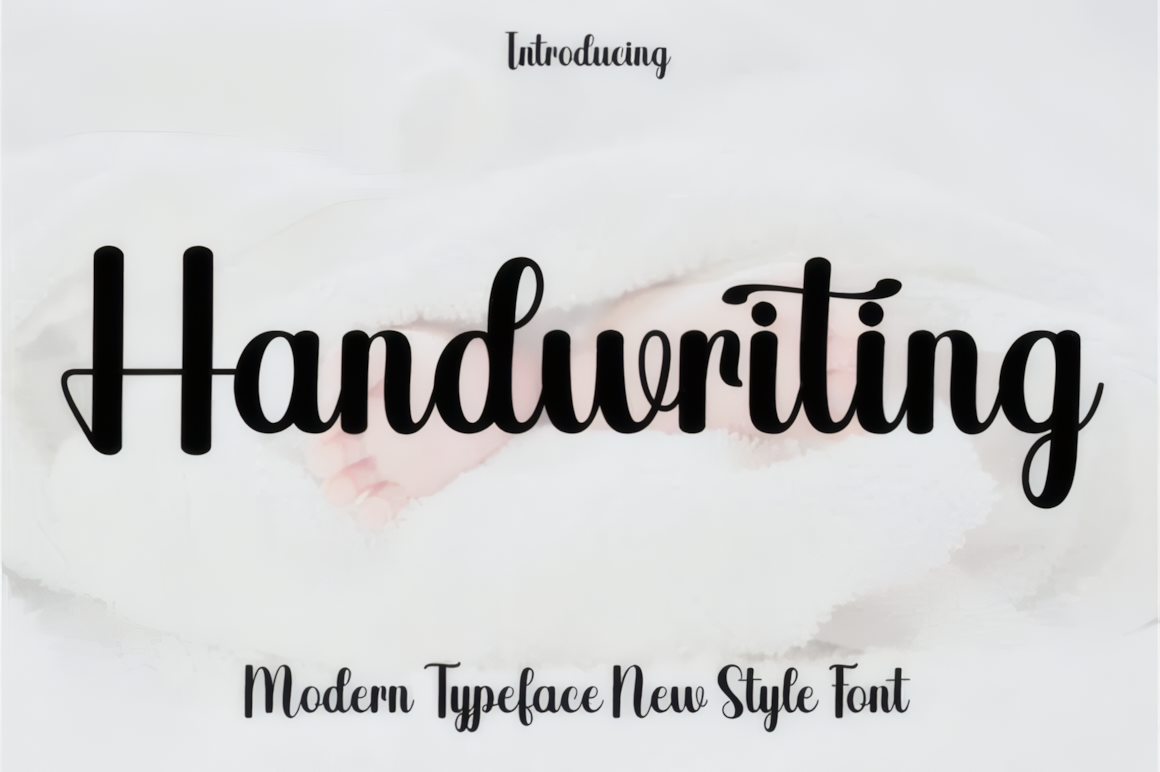
Handwriting Font has rounded, connected letters and an informal rhythm. It is a useful starting point for a personal logo, a short quote, or stationery that should feel welcoming. The included alternates can keep repeated letters from looking identical. Give the taller loops room around the wordmark, and pair the script with a quiet typeface for small details.
Bellinda
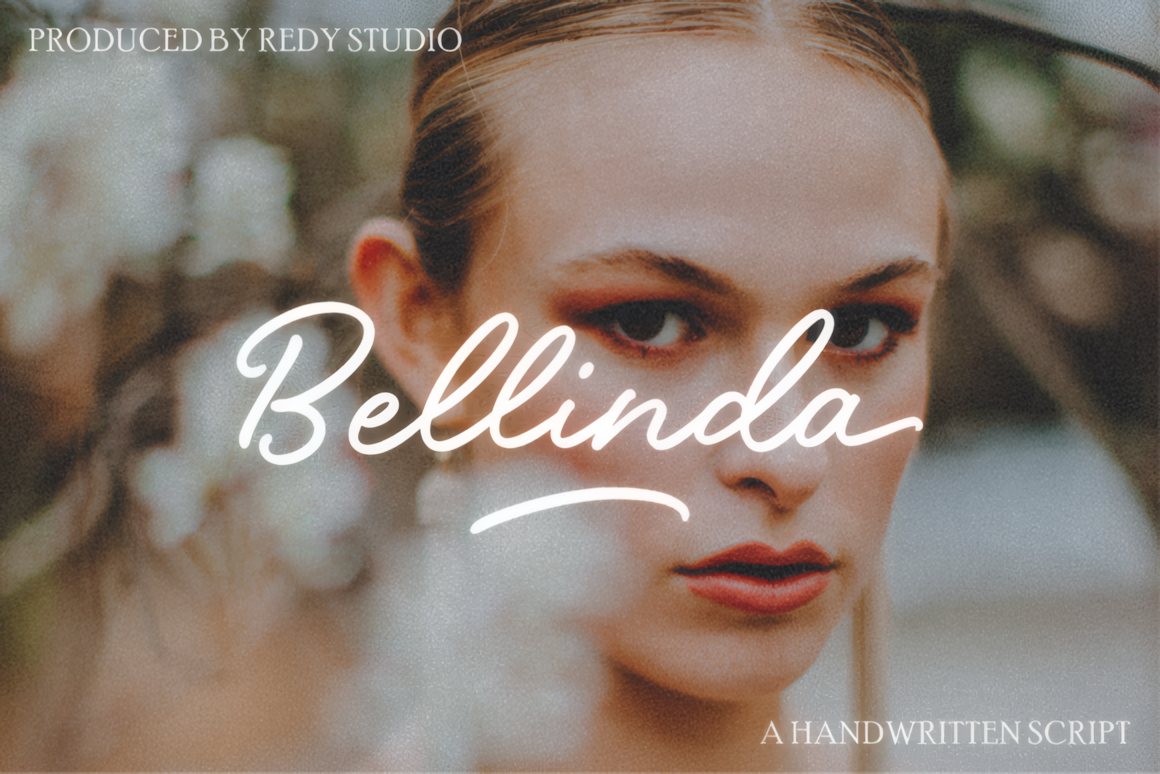
Bellinda brings a softer, nostalgic tone. Its looping forms and swashes suit beauty branding, wedding stationery, and packaging that calls for a handwritten signature. Use the decorative characters selectively: one flourish on a name often makes a stronger impression than embellishing every word. The source describes the extra glyphs as PUA encoded, which can make them accessible in many design applications.
Chemistry
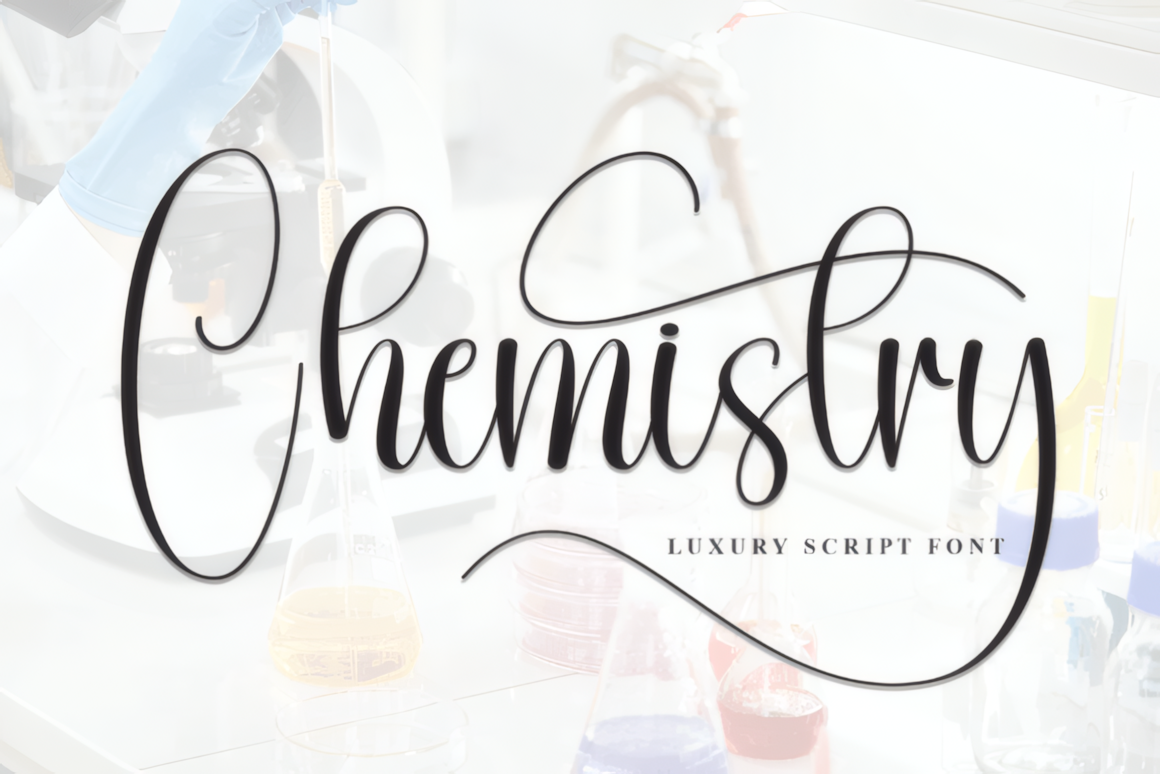
Chemistry is a slender script with tall letters and long, airy extensions. Try it for a short invitation heading, a name card, or a beauty label where generous whitespace is part of the design. Its fine strokes need a clean background and a size large enough to keep the lettering distinct. For a complete layout, let a simpler serif or sans serif carry the practical information.
Butter Donat
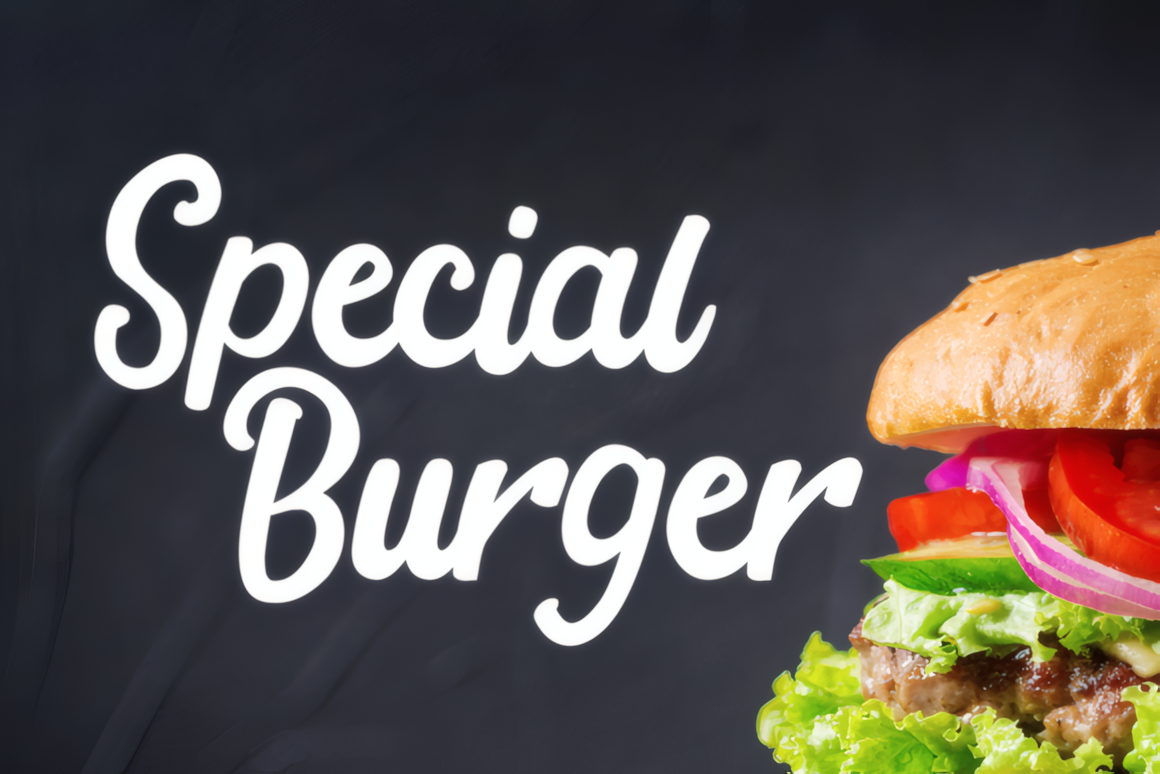
Butter Donat changes the mood entirely. Rounded, substantial strokes give this cursive font the visibility needed for café menus, snack packaging, and playful promotions. It can take the lead in a big headline without relying on fine details. Keep the phrase short and leave space between surrounding elements so the connected letters do not crowd the composition.
Gervia
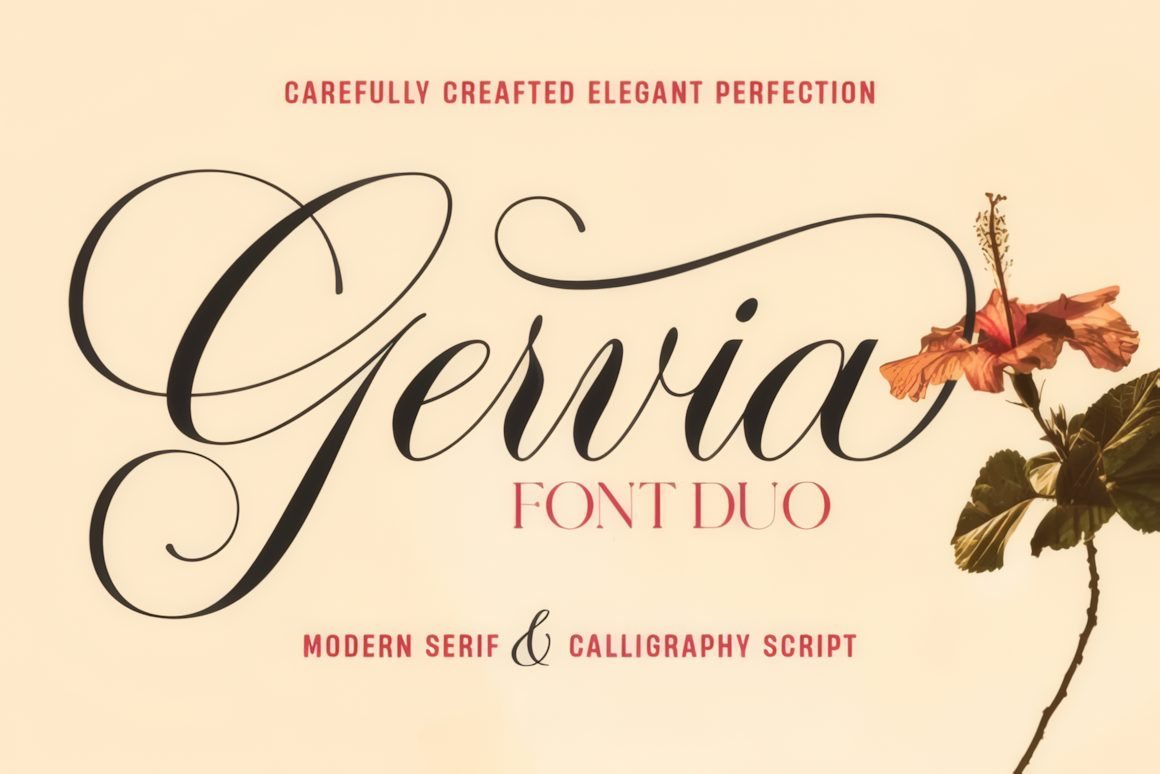
Gervia is a font duo: an expressive calligraphy script is paired with a more structured serif. That makes it especially practical for invitations, editorial covers, and premium packaging. Use the script for the name or main title, then move dates, descriptions, and other supporting text into the serif. The script also offers a large set of alternates for tailoring prominent words.
Elizabeth
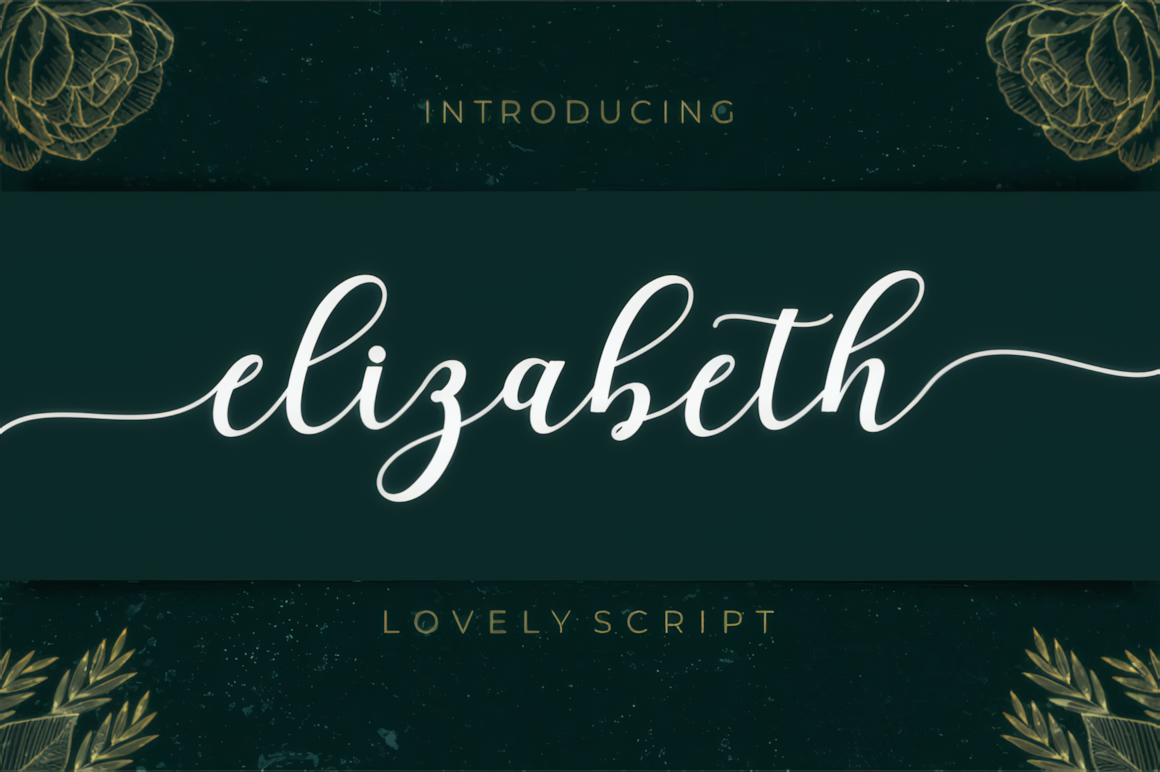
Elizabeth offers a polished signature look for bridal stationery, boutique branding, and elegant product labels. Its connected lowercase letters keep a word flowing, while longer swashes add emphasis to names and brief headlines. Reserve those extensions for display sizes; a clean companion font will make prices, dates, and other small text easier to scan. The source lists PUA encoded decorative glyphs.
Salistya
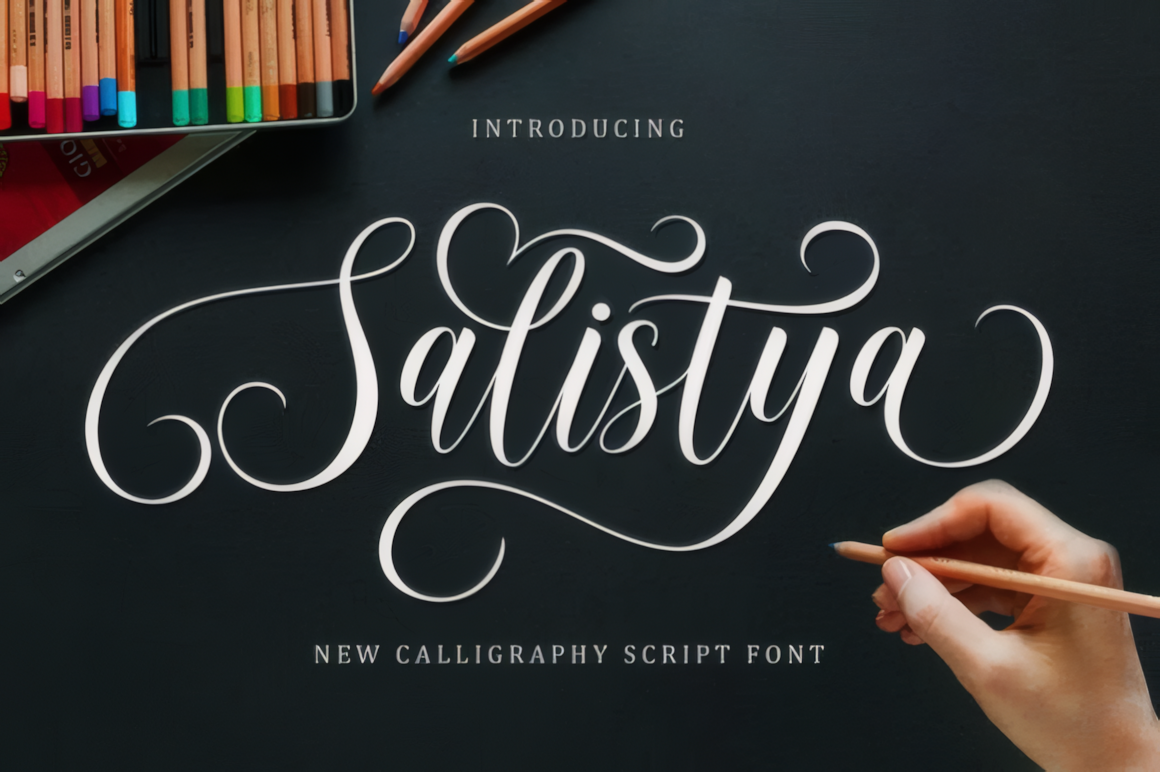
Choose Salistya when the typography should feel theatrical and refined. Slim strokes and extended flourishes give short names a luxurious finish, making the font suitable for a wordmark, invitation cover, or premium package. Those same details can disappear or collide at small sizes, so test the exact wording before committing to a logo. A restrained serif or sans serif provides a useful counterweight.
Lovely Madness
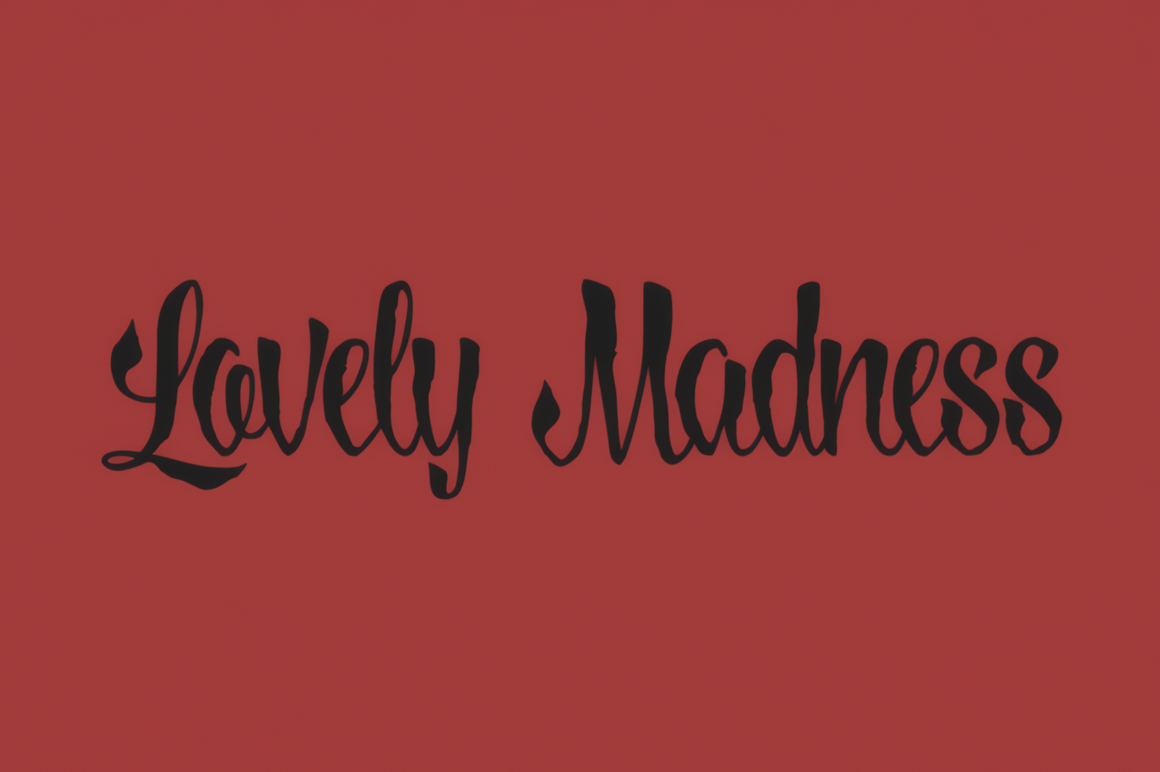
Lovely Madness is the outlier in this collection. Its rougher edges and irregular movement bring character to Halloween artwork, music graphics, and alternative branding. Use it as a deliberate focal point in a short title; longer copy will be easier to read in a conventional typeface. The contrast between an unruly headline and orderly supporting text can make the design feel intentional.
Dentany
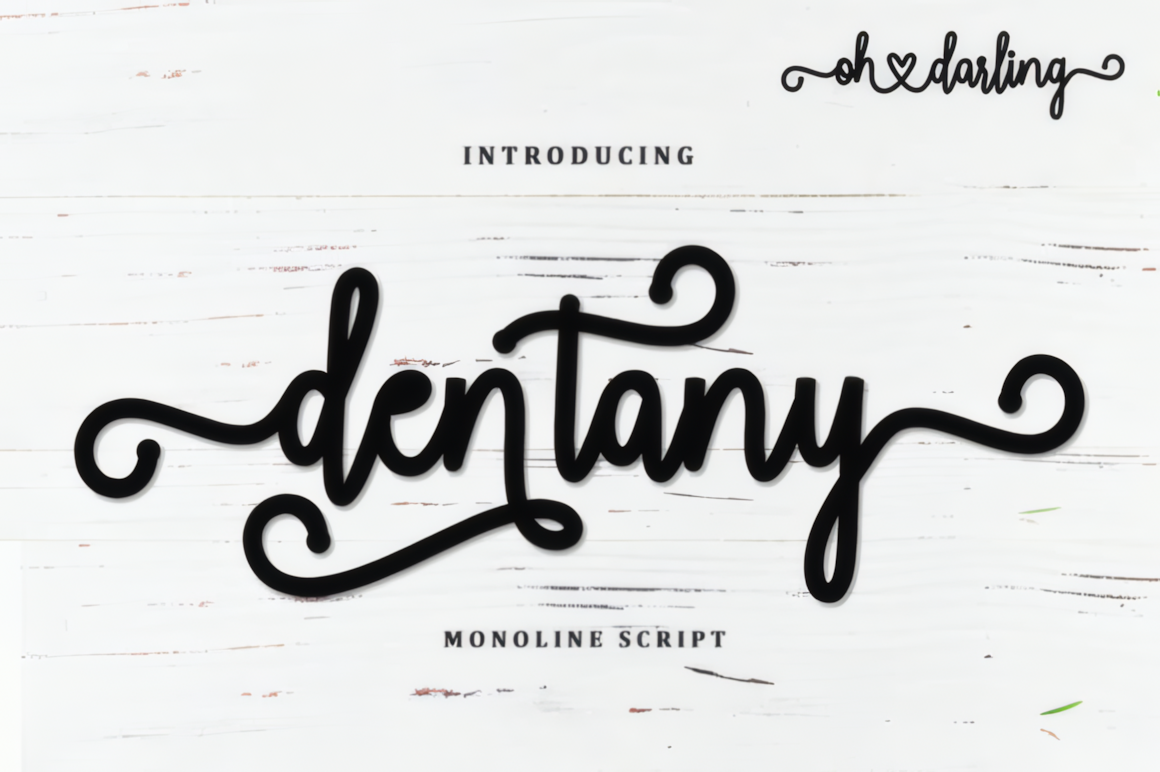
Dentany uses an even, rounded stroke that gives its decorative script a friendly, legible base. It works for greeting cards, restaurant branding, couple names, and romantic packaging. The curled details are most useful in short display text, where they can be appreciated without competing with nearby words. For menus or labels, combine it with a straightforward sans serif for the information customers need to read quickly.
Ballistisia
Ballistisia has more force than the quiet wedding scripts above. Sweeping capitals, prominent strokes, and a brush-like texture can energize posters, merchandise, and promotional graphics. It is best treated as a headline font: set a few words large, then use a simpler family for the message beneath. The source lists ligatures and multilingual support, useful details to verify against your specific project language.